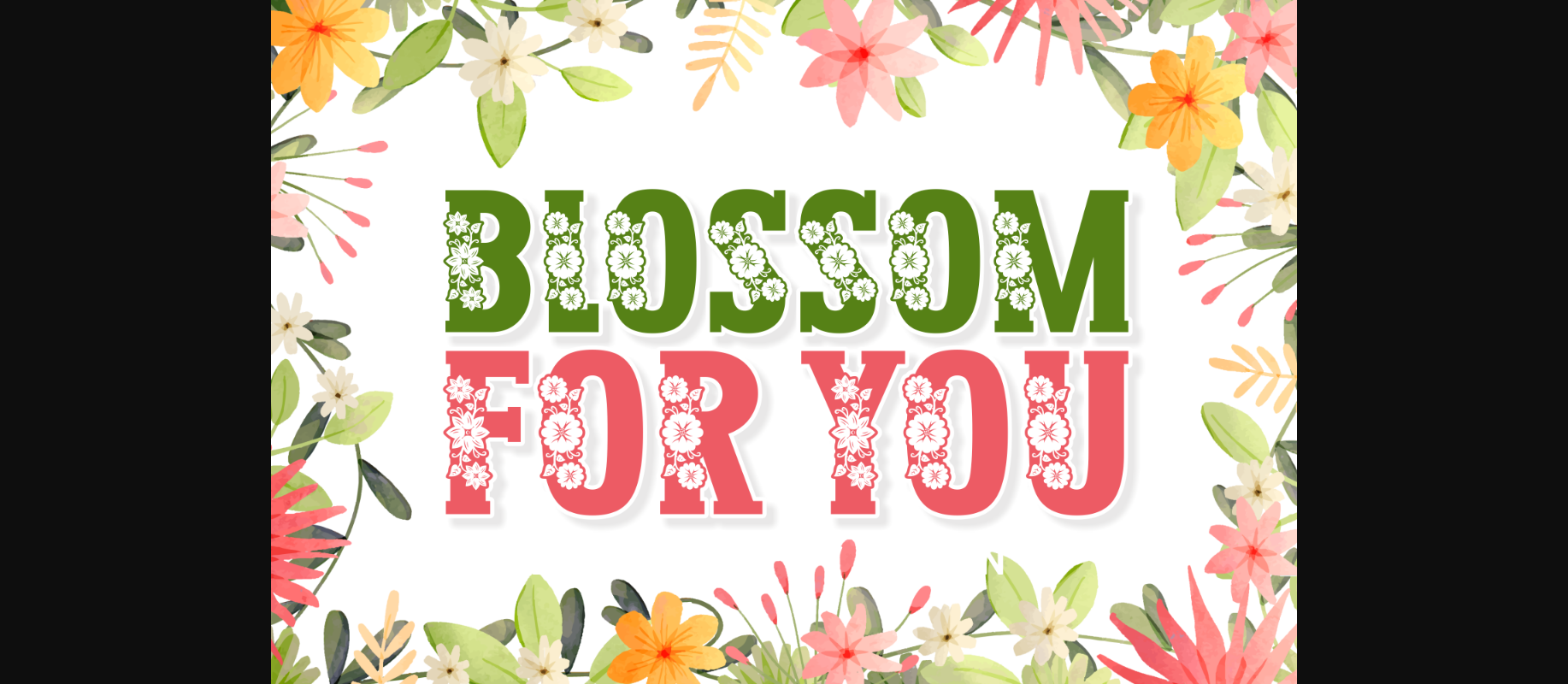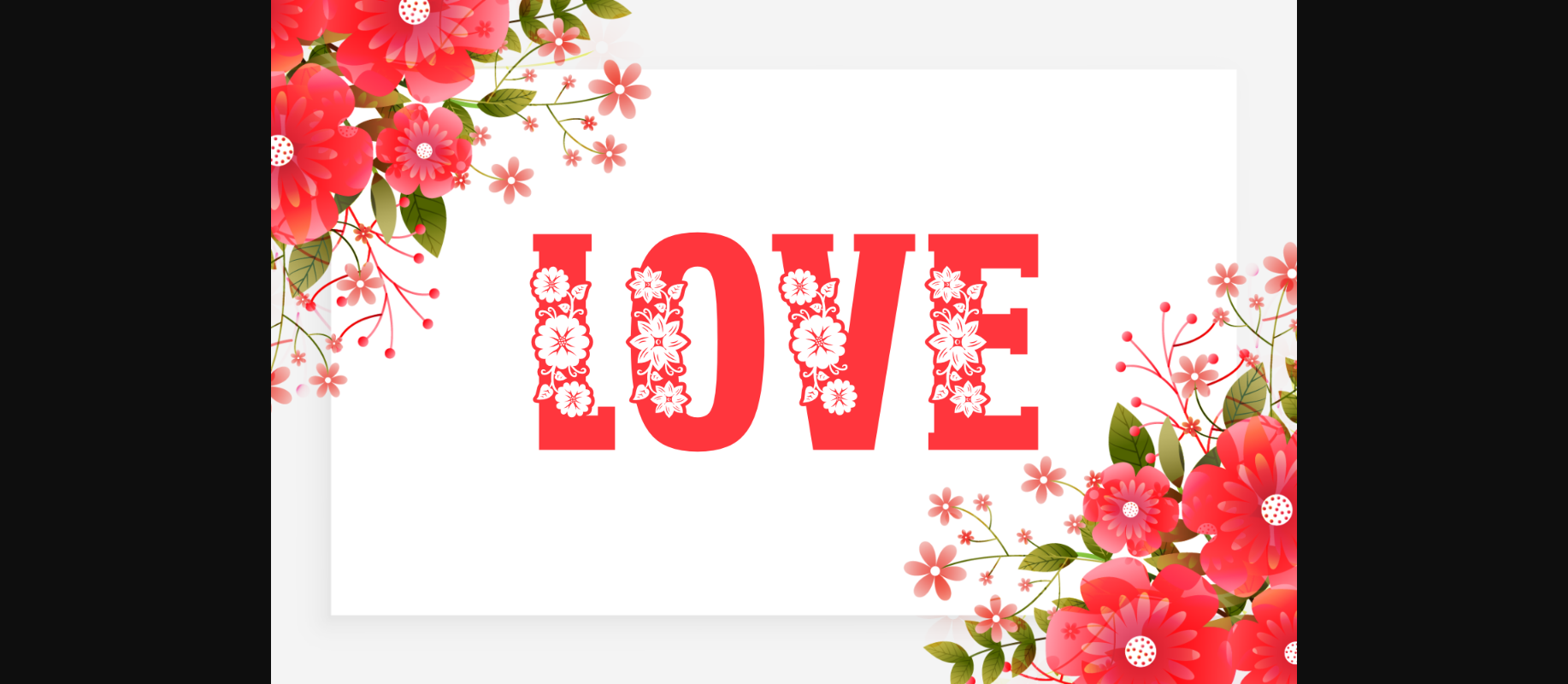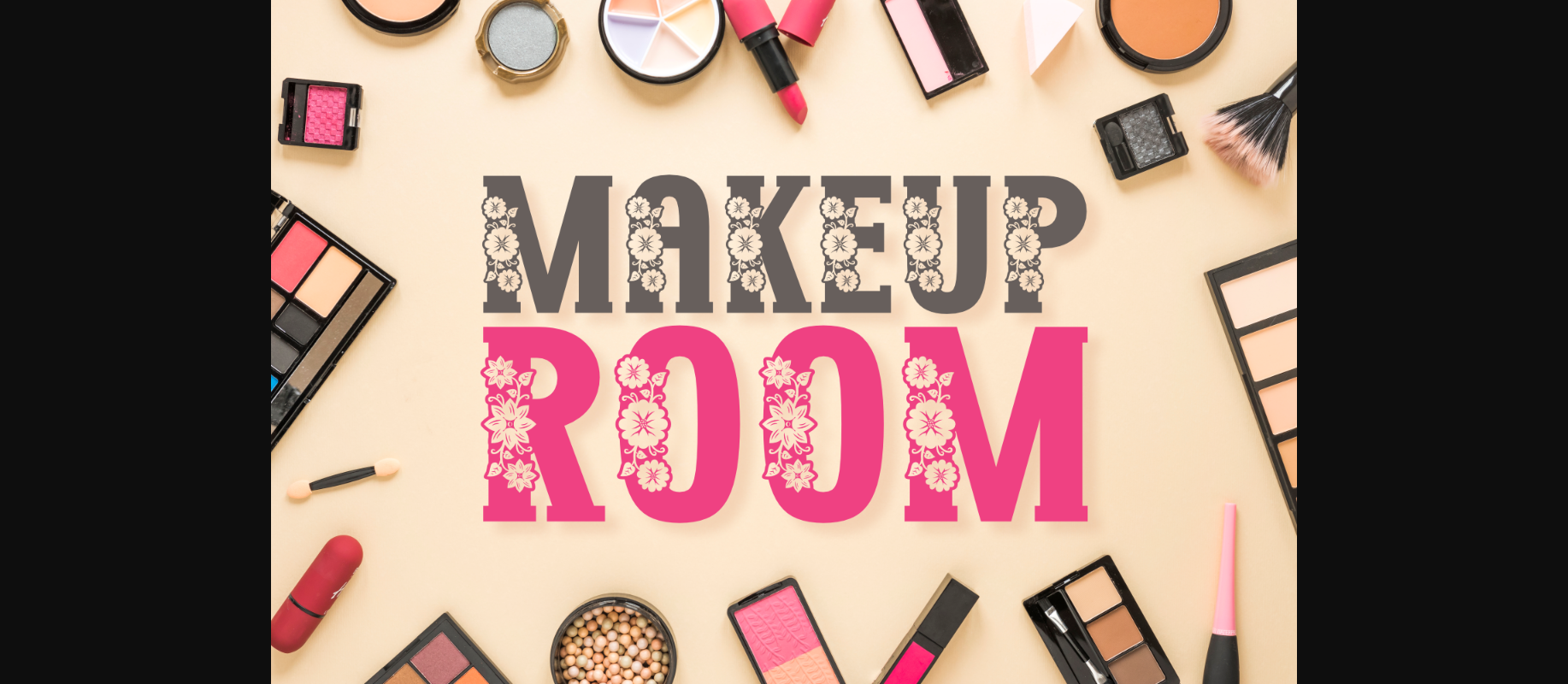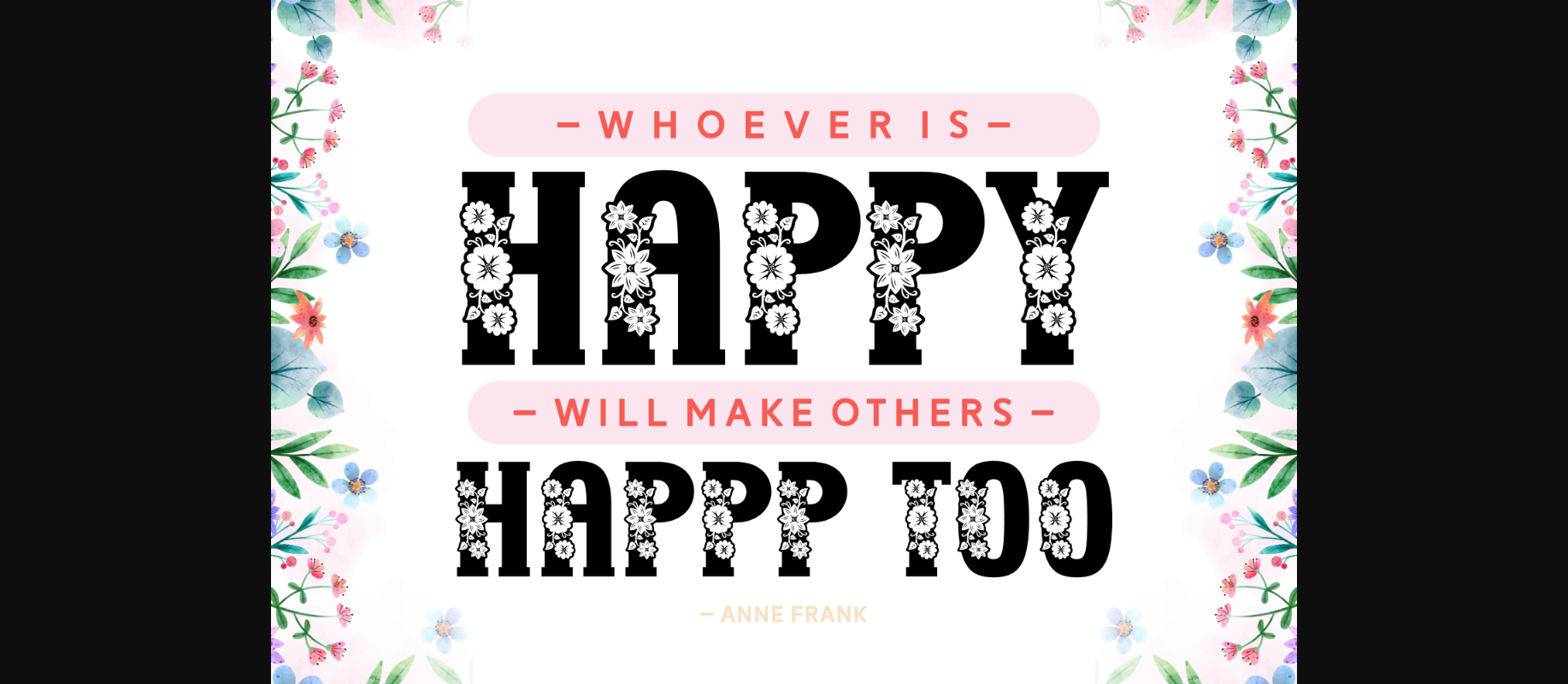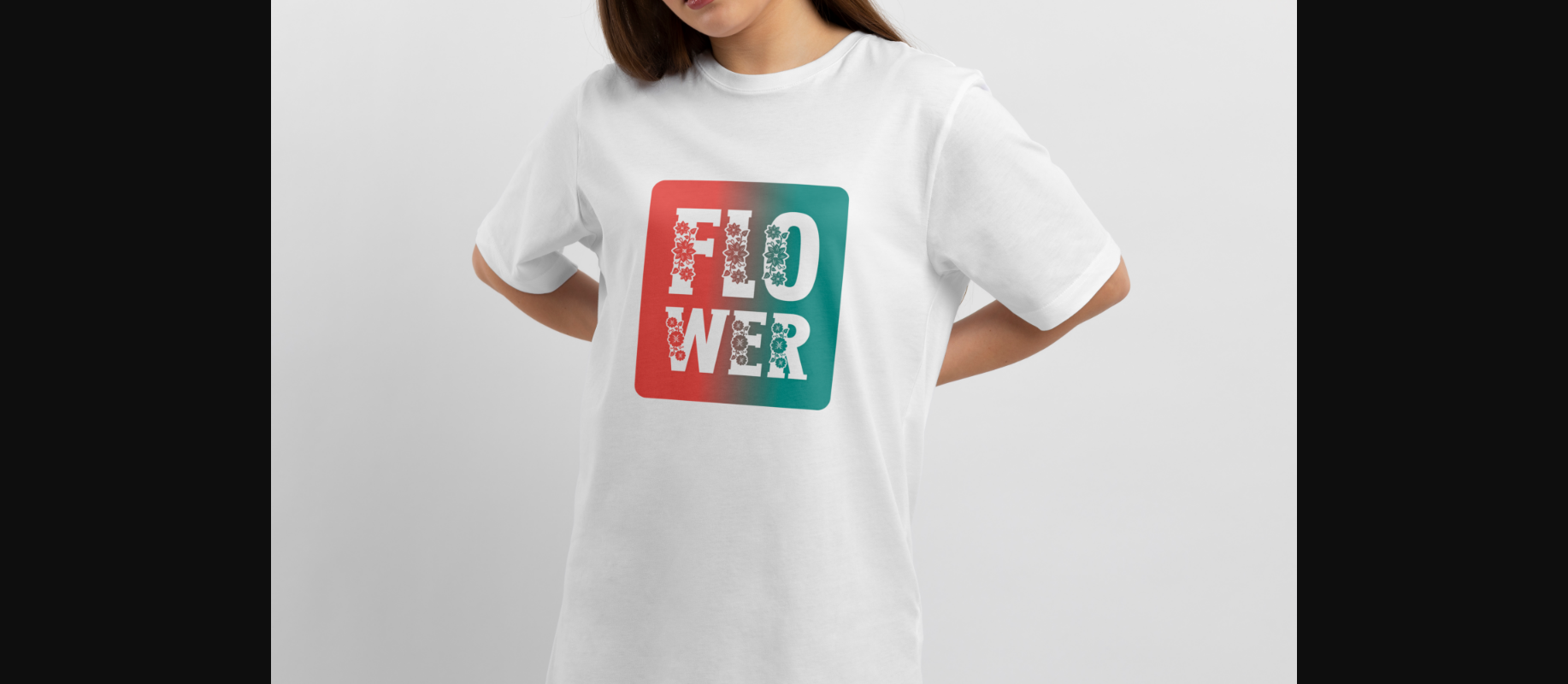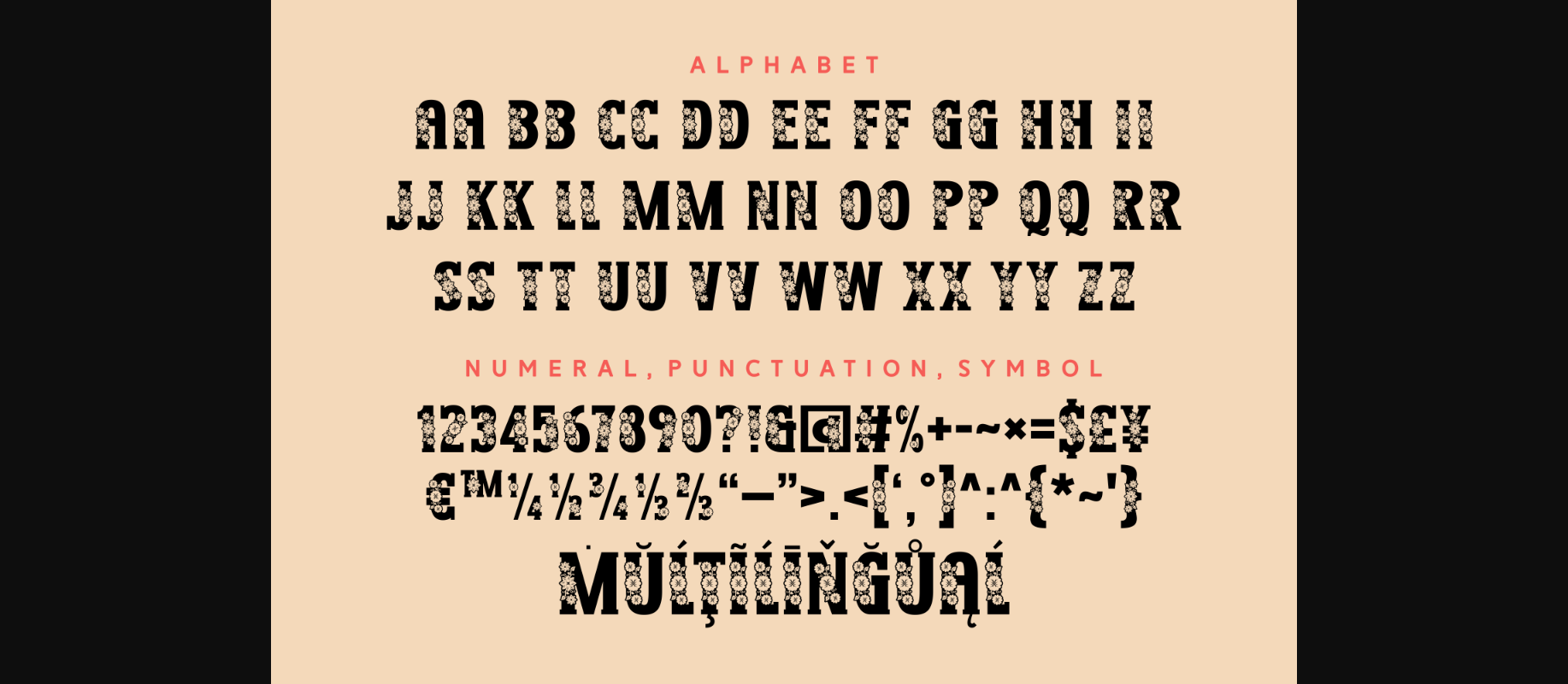
About Blossom for You Font
Blossom for You is a gorgeous floral-themed decorative font. The thick letters, lovely flowers, and delicate leaves make this font perfect for florist branding, spring projects, greeting cards, wedding designs, and many more.